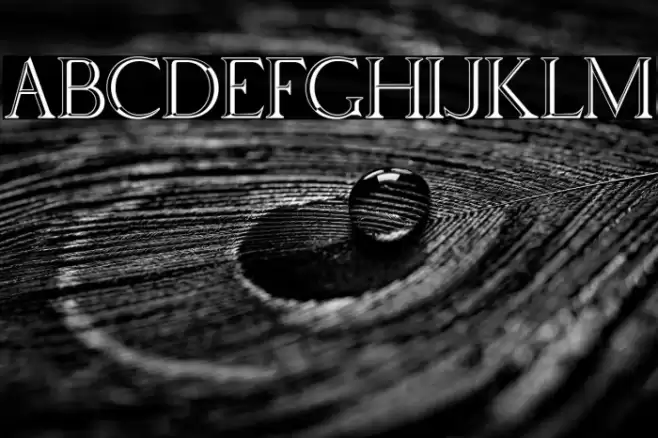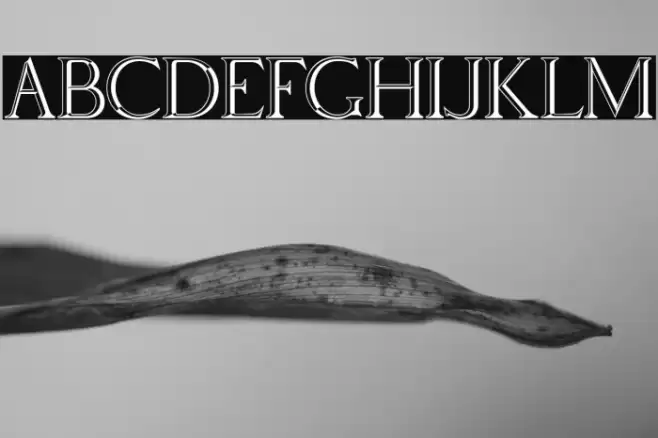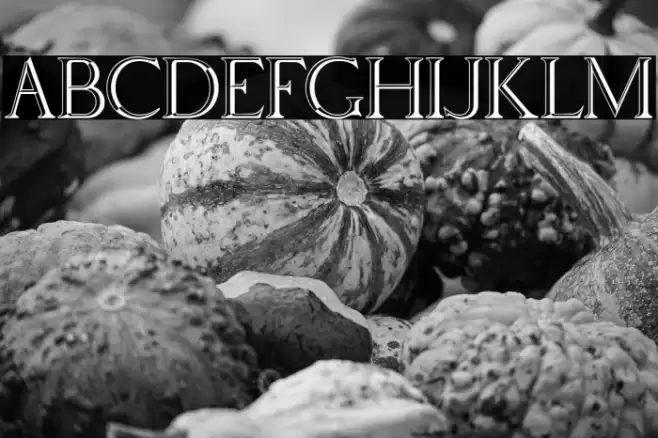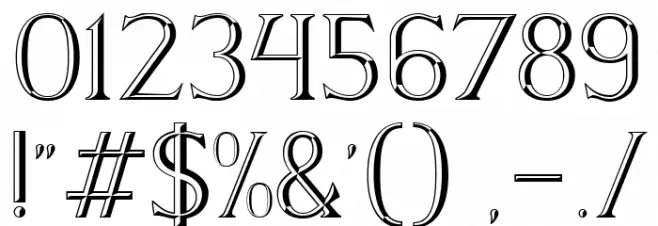
Via Appia Regular Font
Via Appia Regular Description
This font features a classic serif style with a distinct elegance and sophistication. The characters are designed with high contrast between thick and thin strokes, giving it a refined and traditional appearance. The serifs are sharp and pronounced, adding to the font's formal and authoritative look. The overall design is balanced and harmonious, making it suitable for projects that require a touch of class and professionalism. The numerals and special characters are crafted with the same attention to detail, ensuring consistency throughout the typeface.
A classic serif font with high contrast and sharp serifs, exuding elegance and sophistication from Uncategorized fonts.
- Proposed Projects: Ideal for use in formal documents, book covers, invitations, and branding materials that require a classic and professional touch.
- Overall Style: Classic